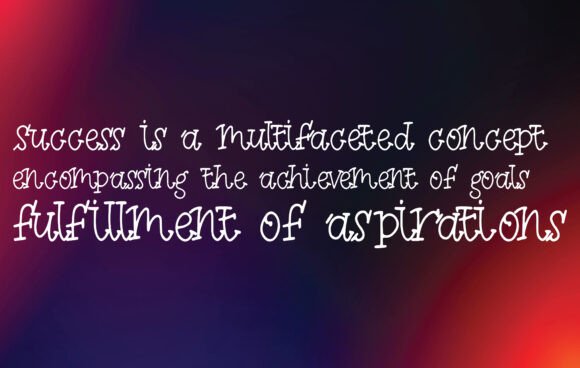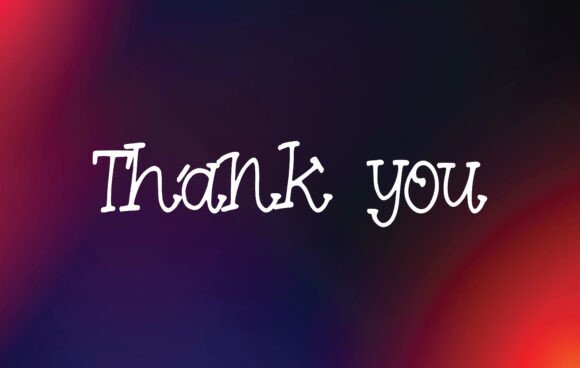
Introduction to Reya Font
Reya is a lovely and beautiful handwritten font.
Key Features of Reya Font
Why Choose Reya Font?
Reya Font offers exceptional quality and versatility, making it a valuable addition to your design toolkit. Whether you’re creating for personal projects or commercial use, Reya Font delivers professional results.